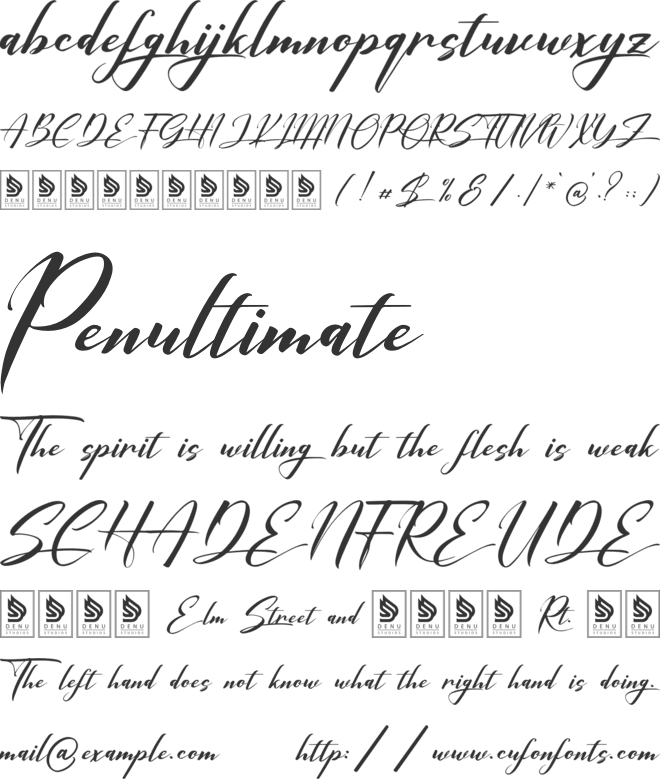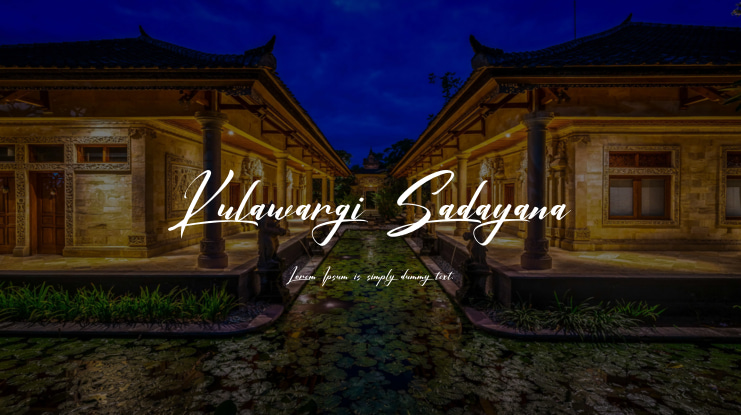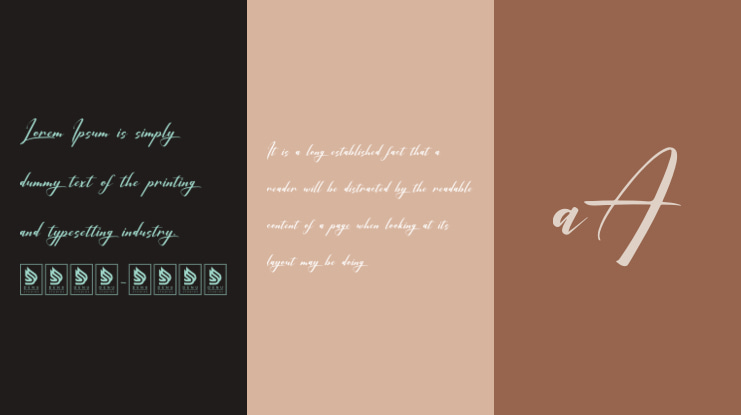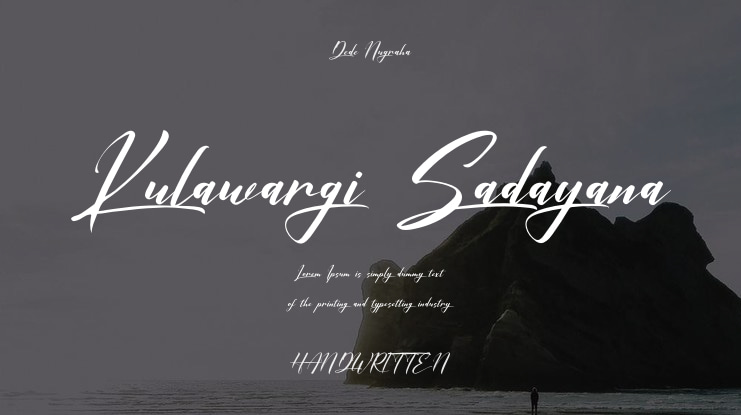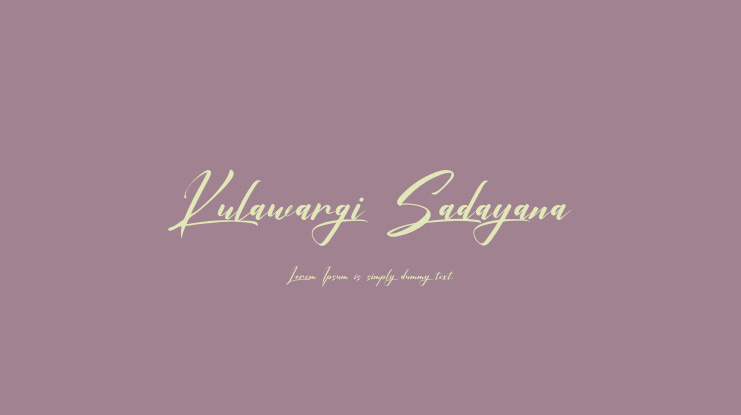
Kulawargi Sadayana is a beautiful Handwritten Script Font that is perfect for a variety of projects including logos, branding, homeware designs, product packaging, quotes, posters, t-shirts, and more. This font adds a unique touch to all your projects that require a Handwritten Script Font.
In Indonesian: Font Kulawargi Sadayana adalah Handwritten Script yang cantik dan cocok digunakan untuk berbagai proyek termasuk logo, branding, desain homeware, kemasan produk, kutipan, poster, kaos, dan lainnya. Font ini memberikan sentuhan unik pada semua proyek yang membutuhkan Handwritten Script Font.